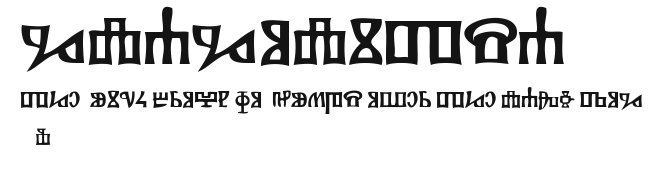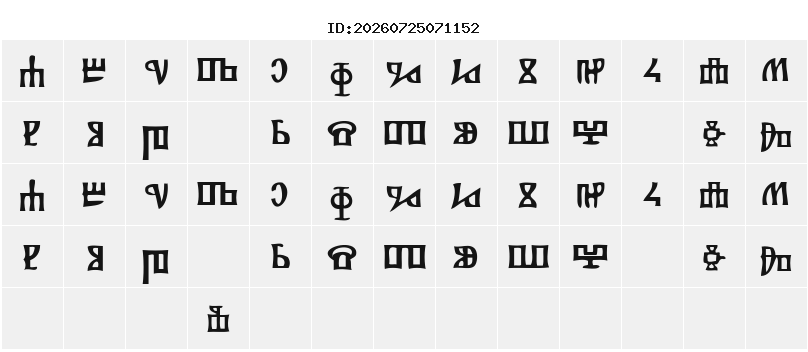
• Font Name: Glagolitsa
• Designer: Daniel Poeira
About Glagolitsa.ttf
Glagolitsa.ttf is a modern, elegant sans-serif font designed for ultimate readability and visual harmony. Perfect for branding, headlines, web design, and print materials.